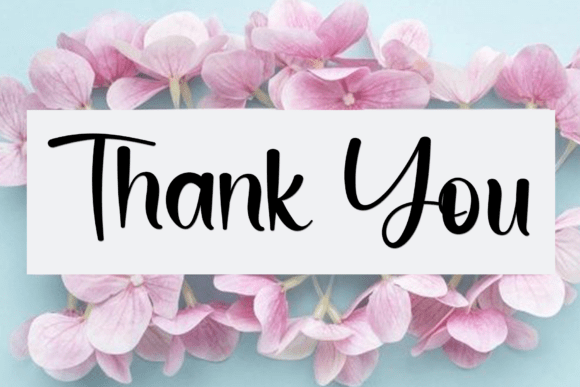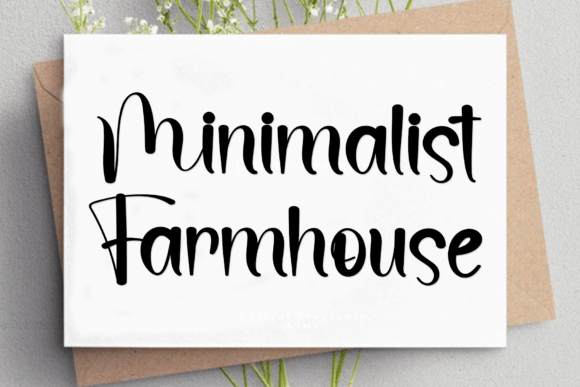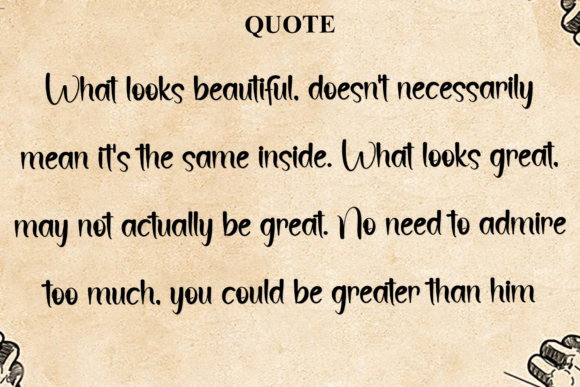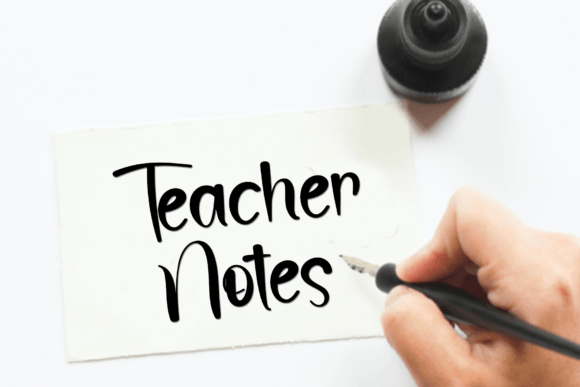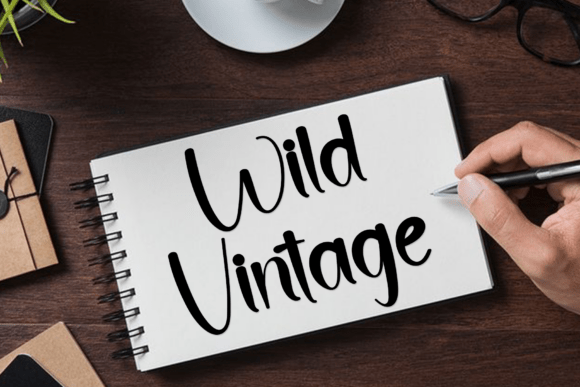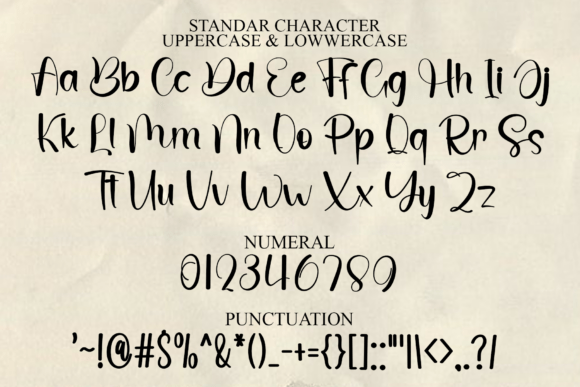
It’s that time of the year when the air is filled with the magic of the holiday season. You’re rummaging through your craft supplies, searching for the perfect embellishments to add a touch of whimsy to your greeting cards. As you flip through your font collection, one face catches your eye – a jolly, festive typeface that screams “Merry Christmas!”.
This is where the Branding Magnolia Font comes in – a beautiful, PUA-encoded font that’s designed to add a dash of enchantment to your designs. Perfect for gift tags, holiday-themed projects, and more, this font is a treasure trove of decorative elements and ligatures waiting to be unleashed. Whether you’re a seasoned designer or a crafting enthusiast, the Branding Magnolia Font is a valuable addition to your toolkit, guaranteed to bring a cheerful and nostalgic ambiance to your words.
Branding Magnolia Font Key Features
- Font Family: Branding Magnolia is a unique, hand-drawn script font designed to evoke a sense of elegance and sophistication.
- Unique Characteristics: Features a flowing, handwritten feel with subtle flair and swashes, adding a touch of personality to any design.
Design Review: Branding Magnolia Font
At first glance, Branding Magnolia Font is a beautiful script font that exudes elegance and sophistication. ✨ The flowing lines, subtle flourishes, and soft curves make it perfect for creating a warm and inviting atmosphere in branding materials. Whether it’s a logo, brochure, or website, this font is sure to catch the eye.
One of the standout features of Branding Magnolia Font is its versatility. ✨ It works well in both digital and print formats, and can be used in a variety of contexts, from fashion to home decor. The font also has a range of weights and styles, making it easy to customize to suit different design needs.
- ⚠️ The font may be too ornate for some designs, particularly those that require a more minimalist or modern aesthetic.
- ⚠️ The font’s complexity may make it difficult to pair with other fonts, requiring careful selection to avoid visual clutter.
- ⚠️ The font may not be suitable for large blocks of text, as the script style can become overwhelming.
Overall, Branding Magnolia Font is a beautiful and versatile script font that is perfect for designers looking to add a touch of elegance to their projects. While it may have some limitations, the font’s strengths make it a valuable addition to any design toolkit.